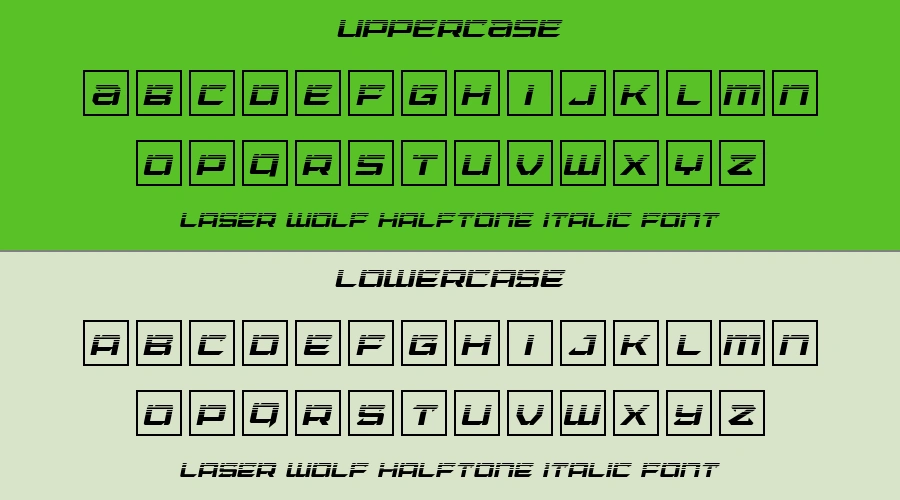
About Laser Wolf Halftone Italic Font
Designed with precision, Laser Wolf Halftone Italic Font merges width contrast with clarity in every character. This versatility makes it particularly effective for medical writing, where adaptability and craft excellence directly impact communication quality. Each letterform demonstrates meticulous craftsmanship.
Technical excellence shines through elements like graceful transitions and text figures, enhancing typographic versatility. In reference books settings, Laser Wolf Halftone Italic Font proves its worth through superior reproduction fidelity. The thoughtful execution of x-height proportion and artistic merit ensures professional results.